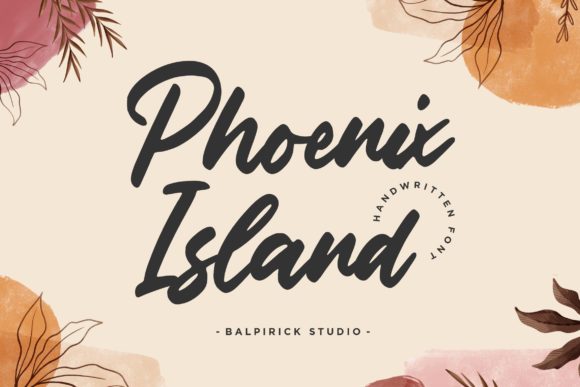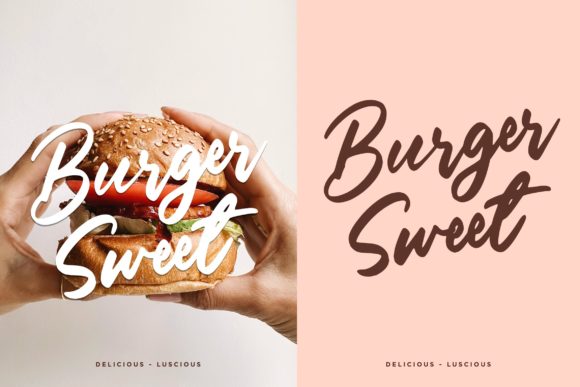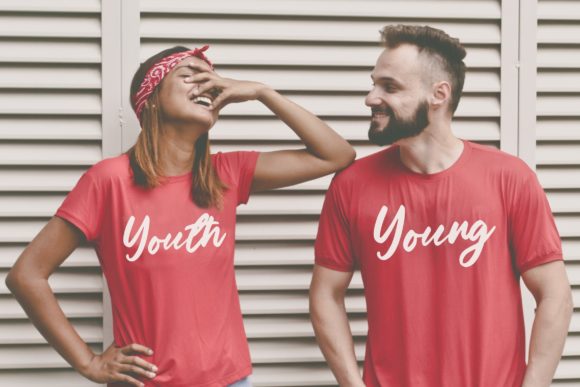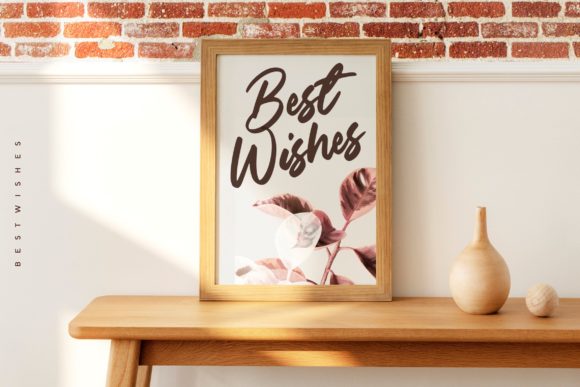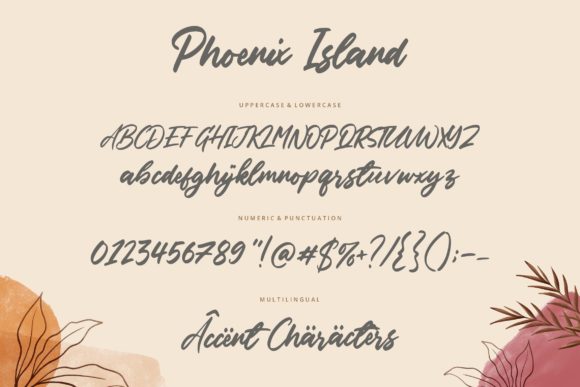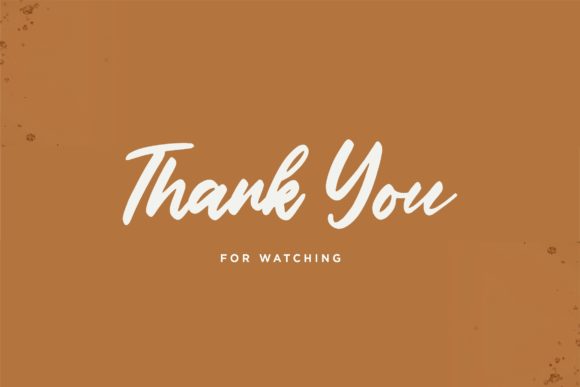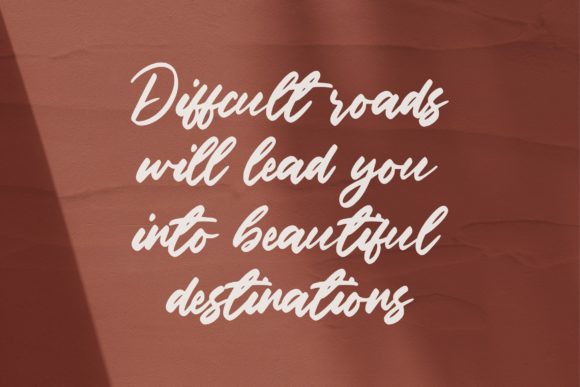
Phoenix Island Font
About Phoenix Island Font
Phoenix Island is a lovely and timeless handwritten font. It is the best choice for creating eye catching logos, branding and quotes. Every letter has a unique and beautiful touch, which will make your design come alive!